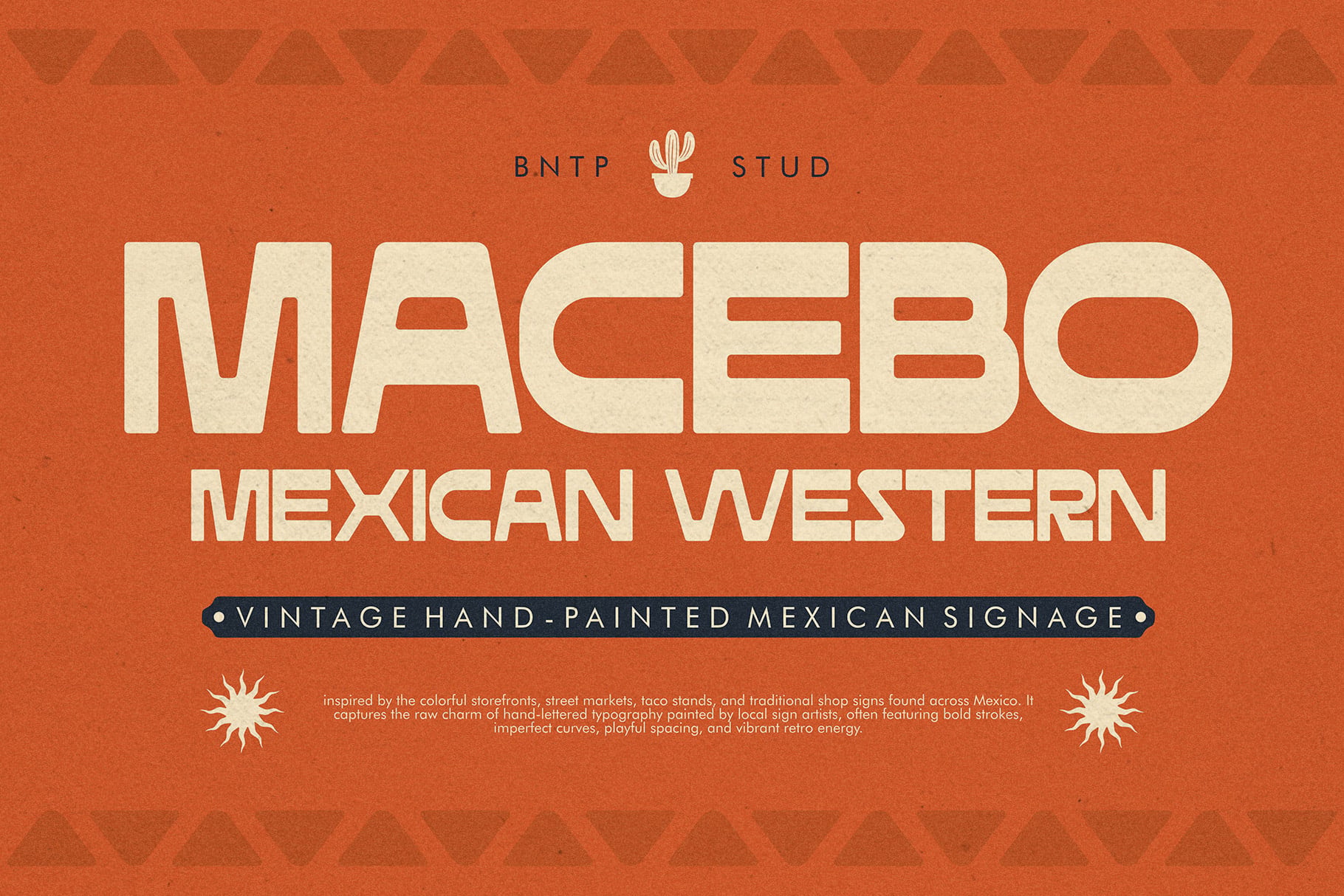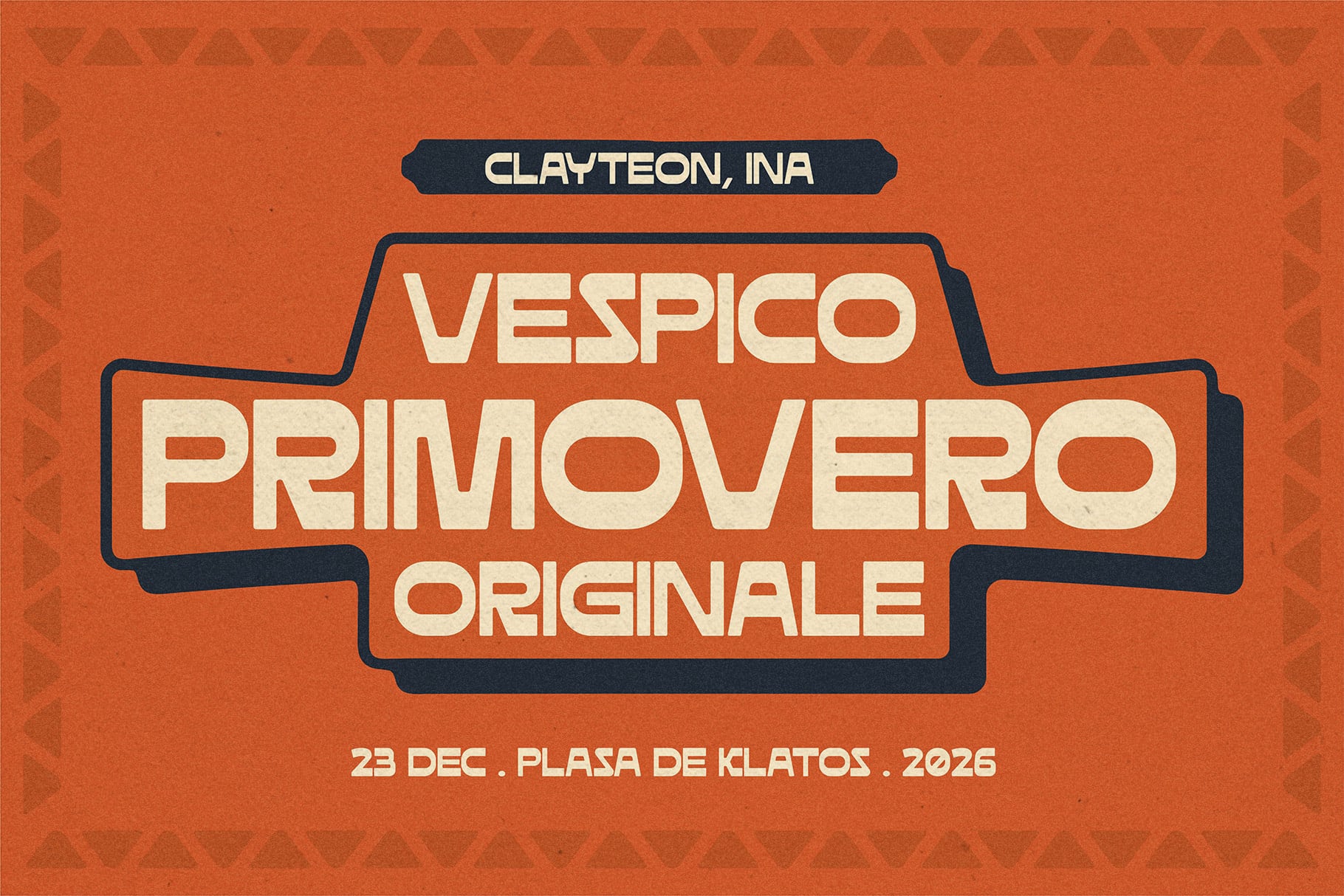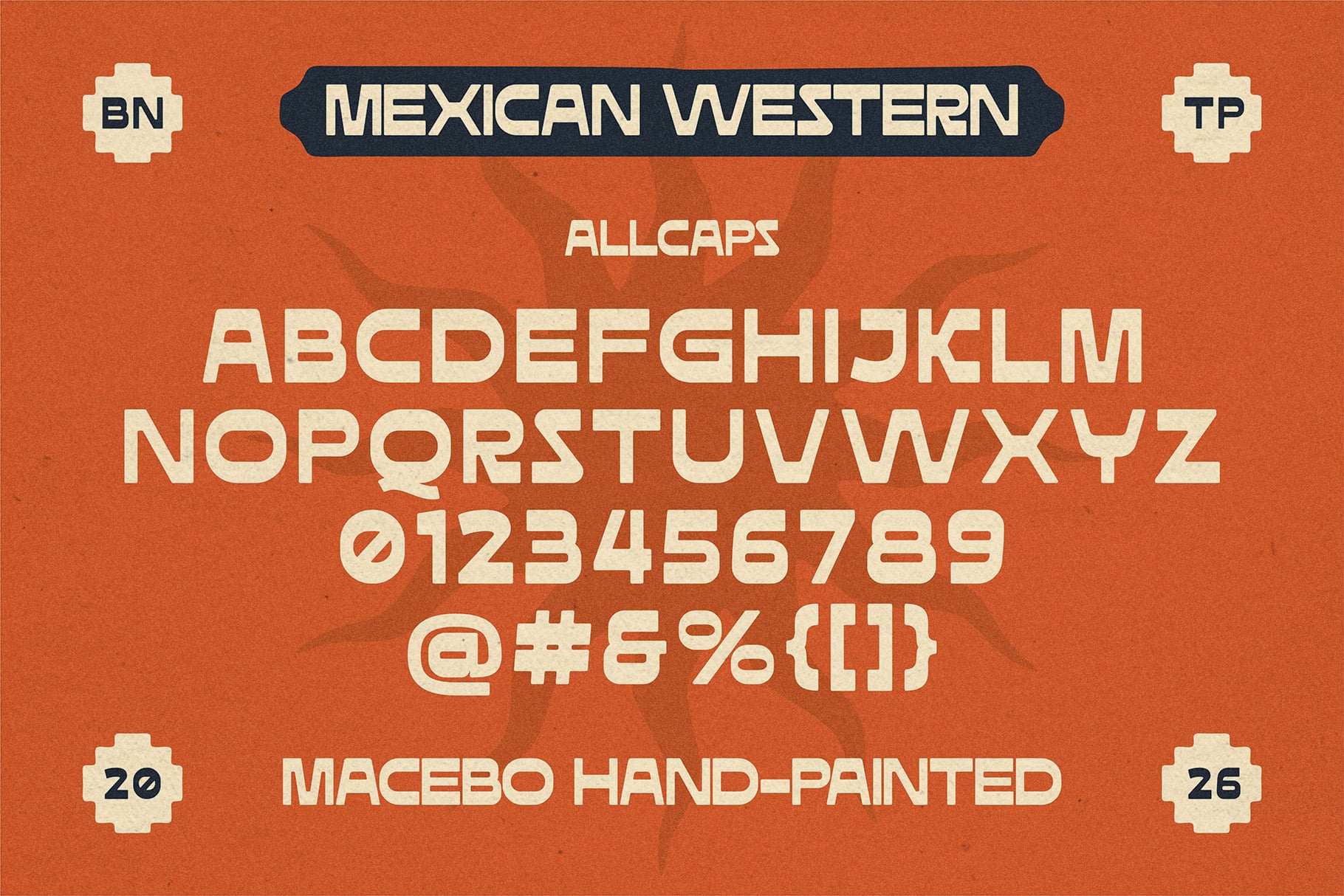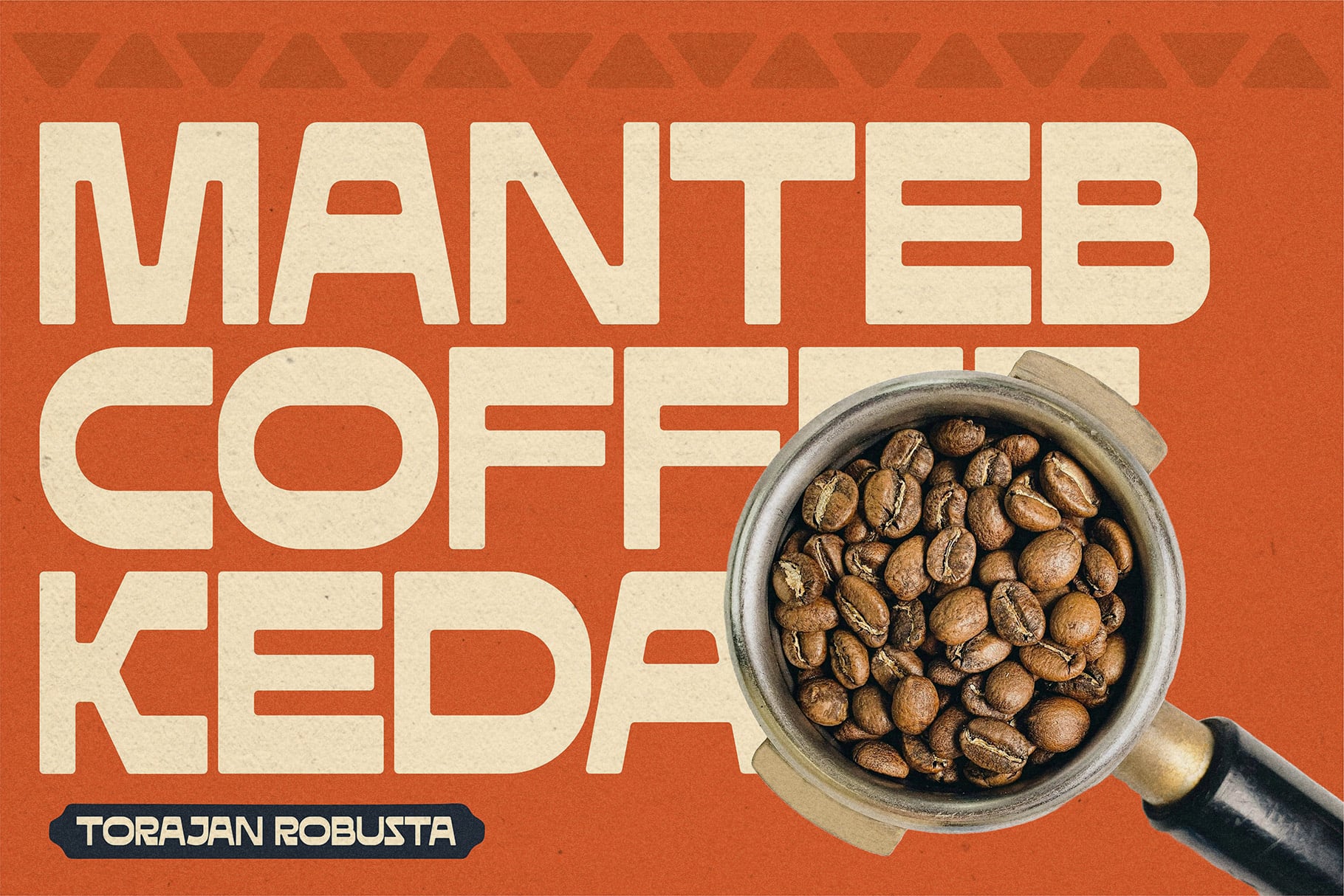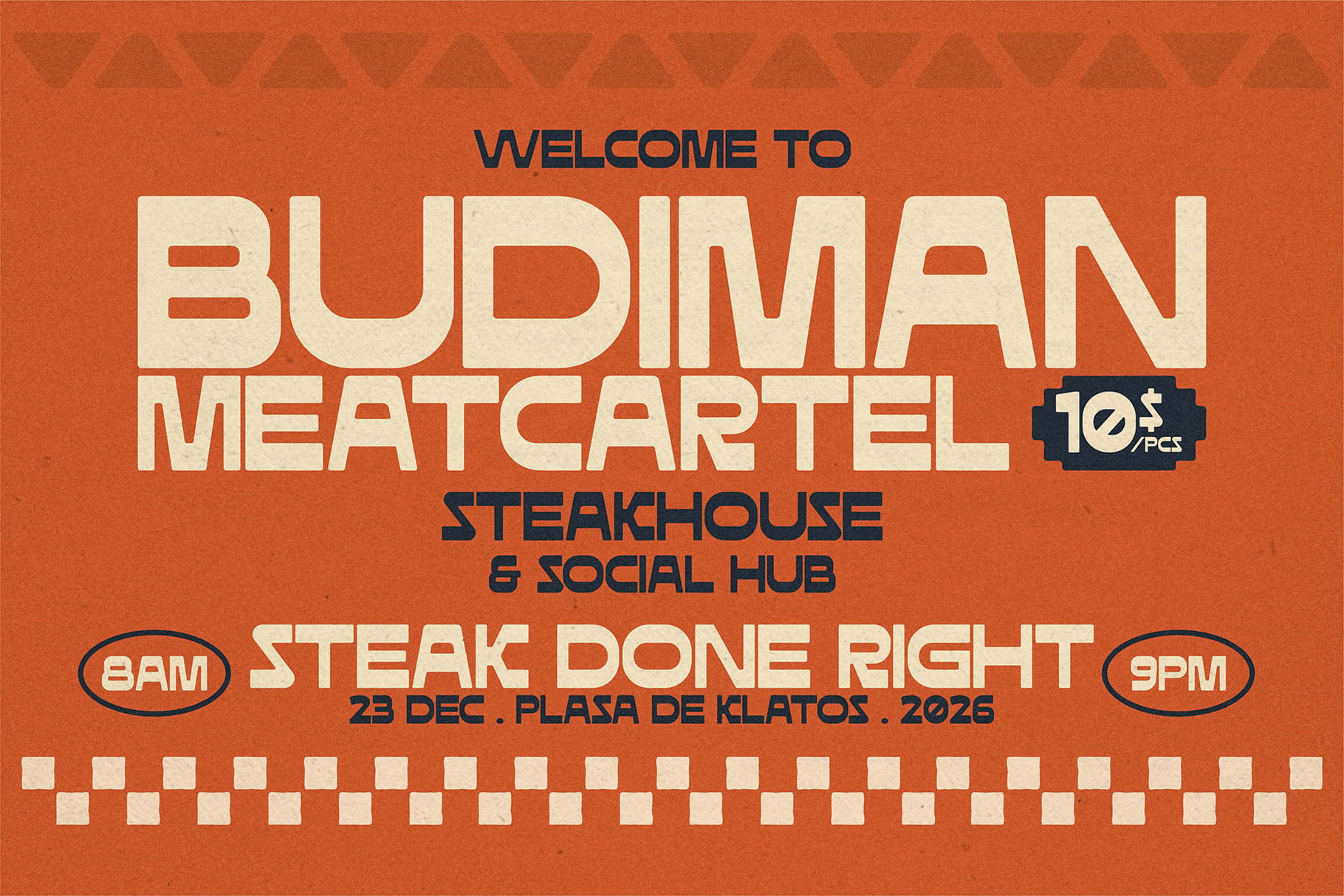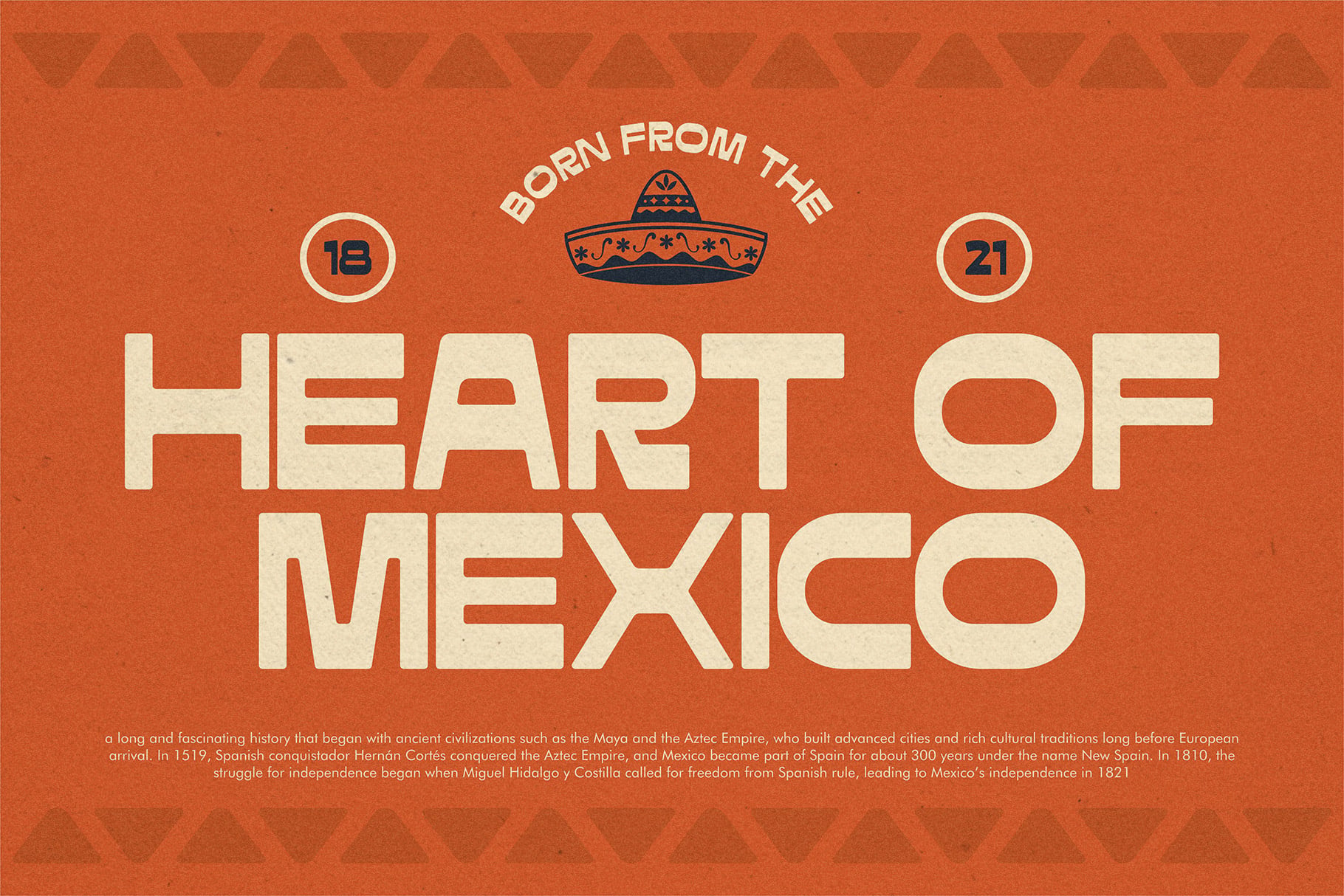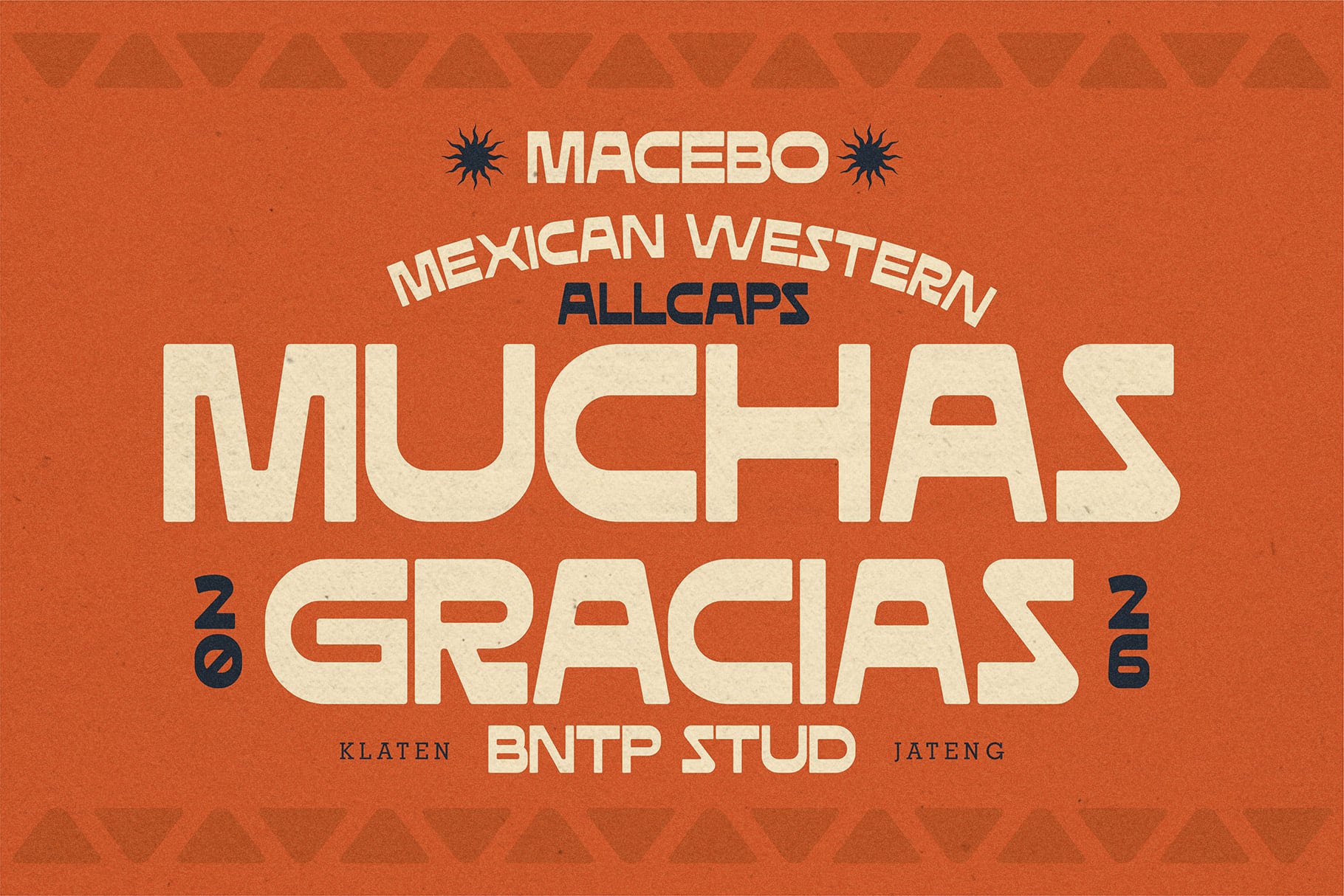
Macebo - Mexican Western Display Font is a Bold, playful, and full of vintage energy, this hand-painted Mexican western style font brings a strong..retro atmosphere inspired by old cantina signs, desert culture, and classic Latin street typography. With its chunky geometric shapes, unique curves, and handcrafted character details, this typeface is perfect for posters, branding, packaging, restaurant themes, festival designs, and any creative project that needs a warm, authentic, and adventurous vintage vibe.
Allcaps
Numbers
Punctuation